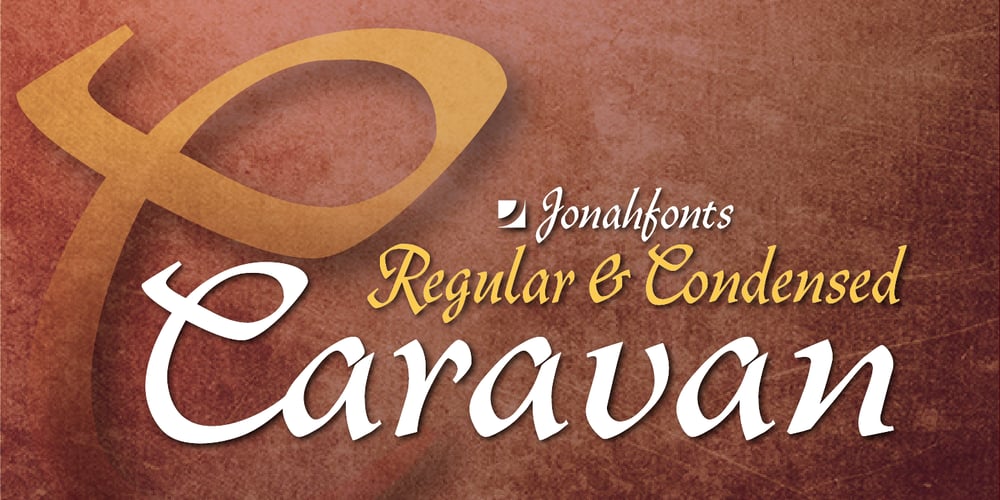
Caravan Script Font Family was designed by John Nahmias and published by Jonahfonts. Caravan Script contains 2 styles and family package options. An unconnecting informal yet formal script. Caravan is a rambling font which gives the appearance of going places.